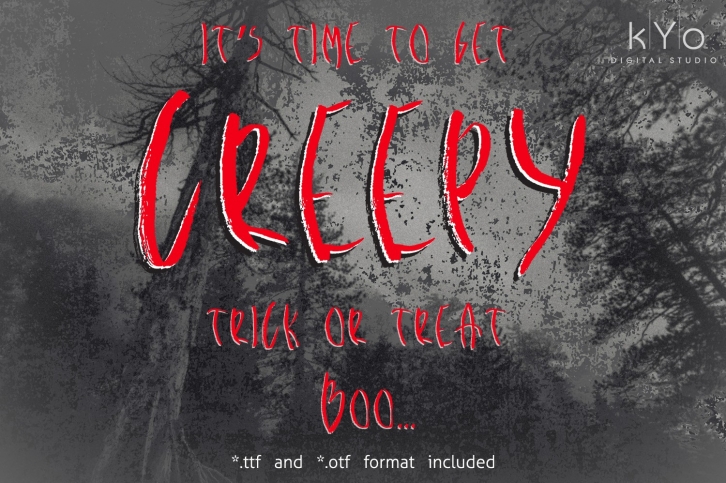
Creepy Brush Halloween is a great font that was designed by kYo Digital Studio. Imagine the amount of combinations you can create using this font! The archive is 12.55 MB and it was released on July 16, 2018. Creepy Brush Halloween looks beautiful on wedding invitations, greeting cards, logos, posters, labels, t-shirt designs, logos, business cards and is perfect for use in ink or watercolor works, fashion, magazines, packaging and food menus, children's books and more!